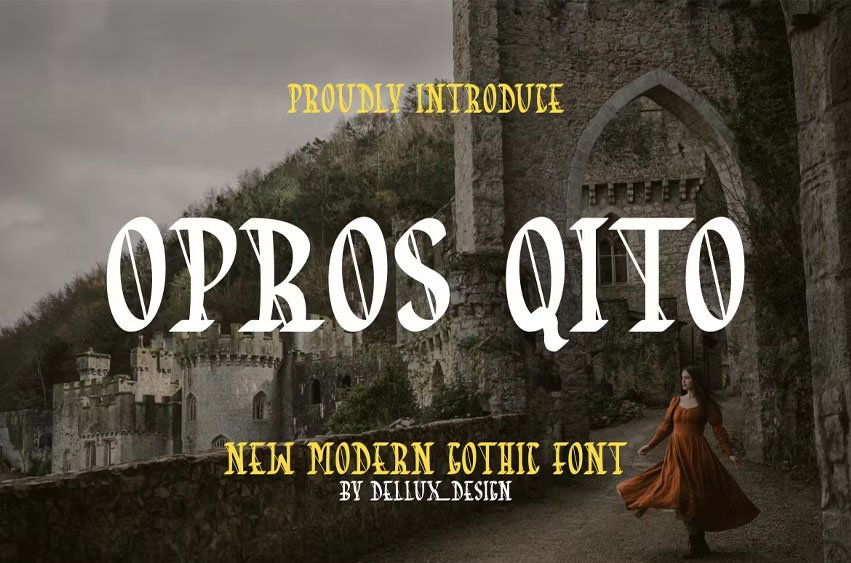
Opros Qito Font is a unique font. Can make it easier to convey the message in your design. Use for awesome display, labelling, clothing, movie sceen, poster, movie title, gigs, album covers, logos, and much more.
- Uppercase & lowercase letters
- Numbers & punctuation